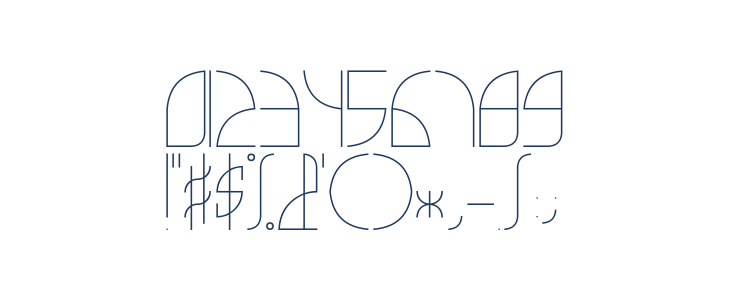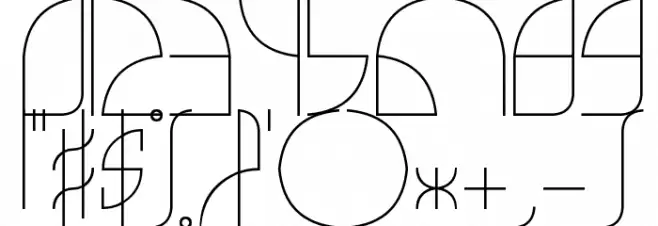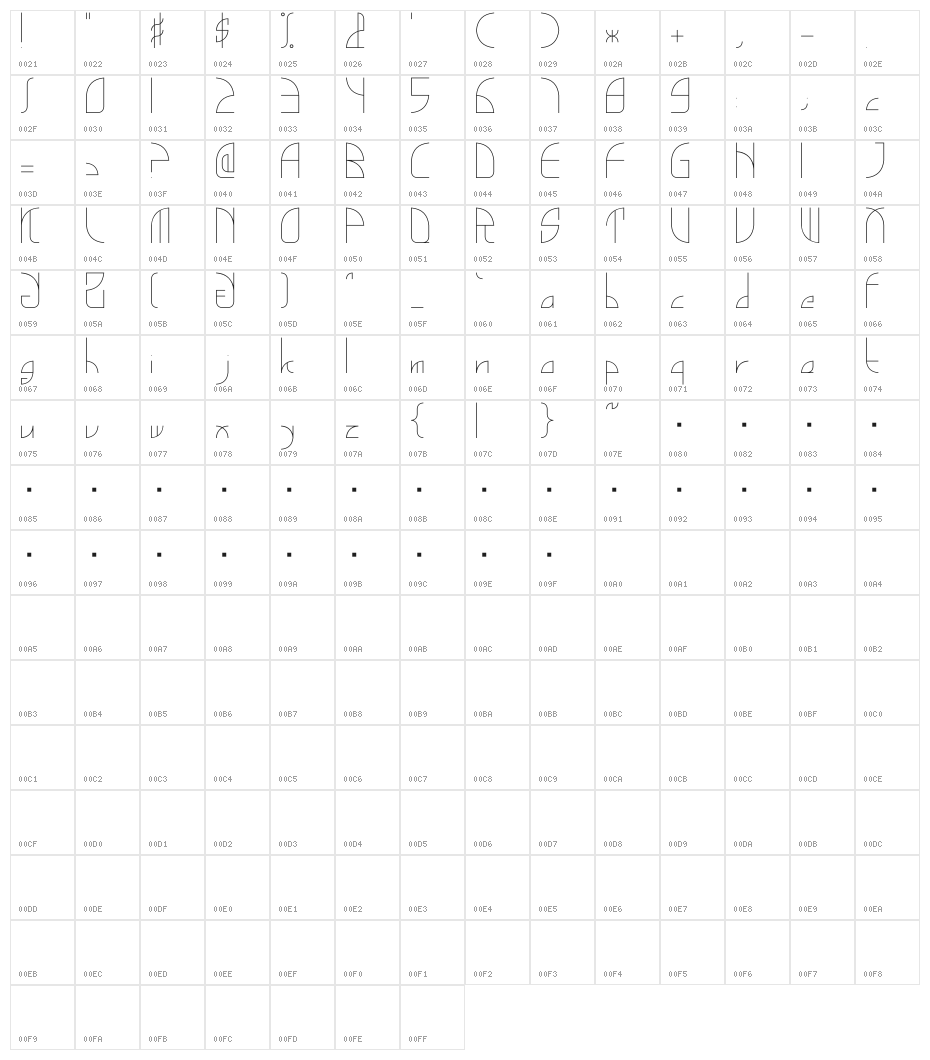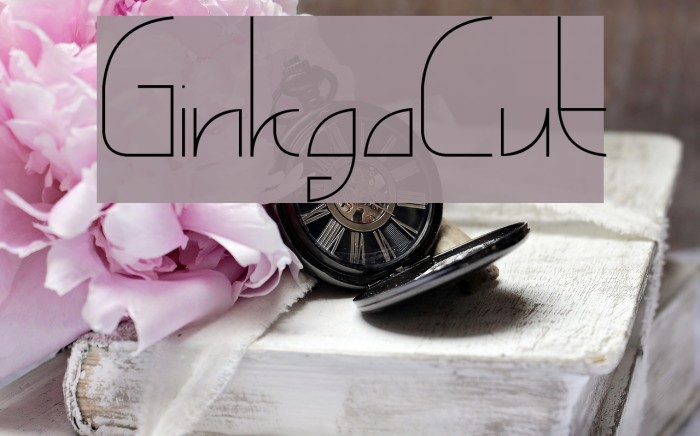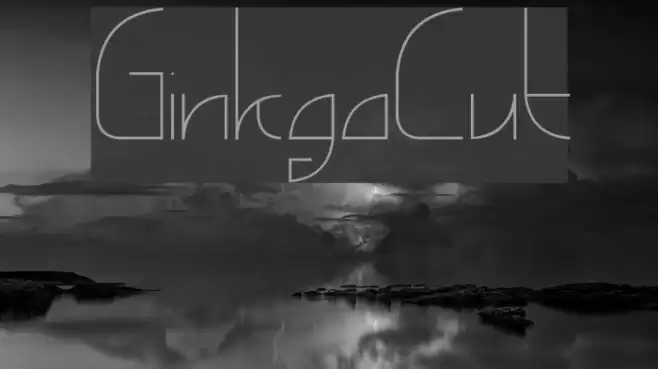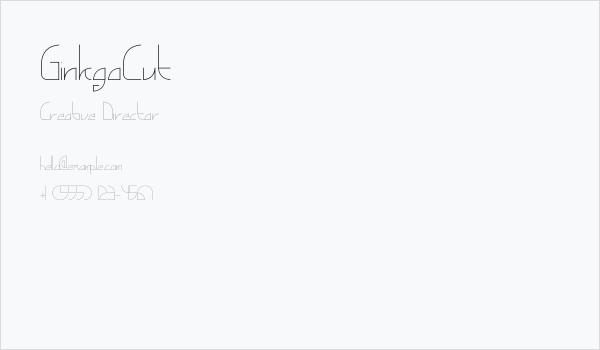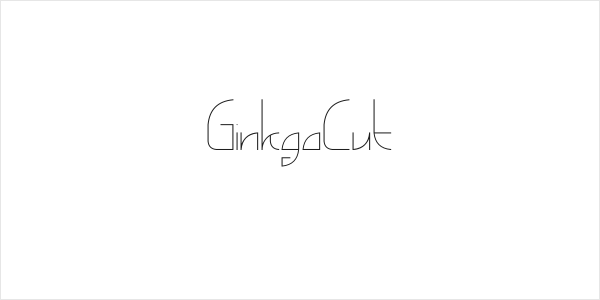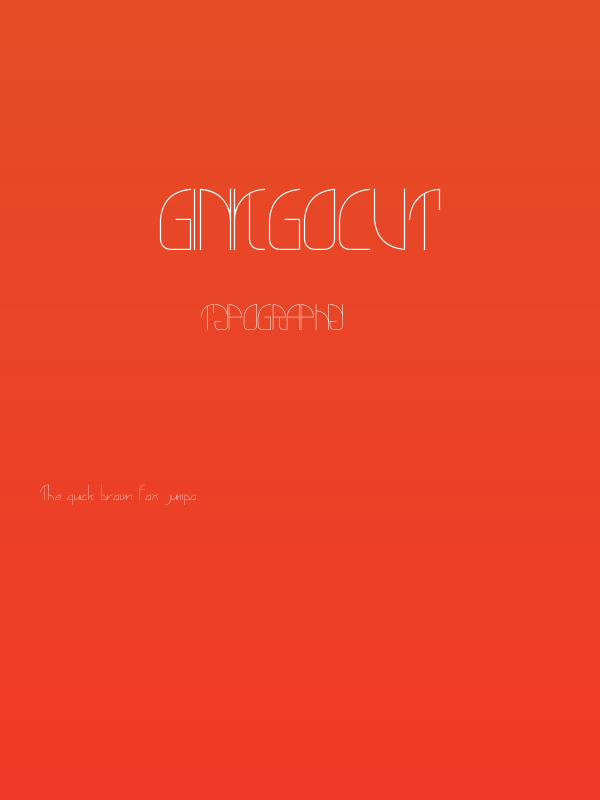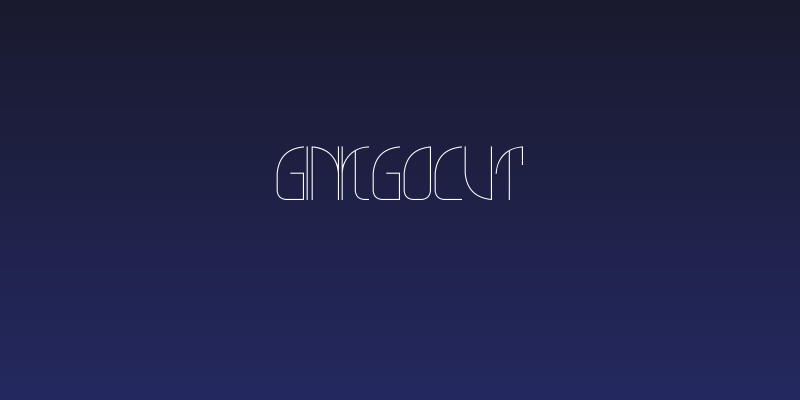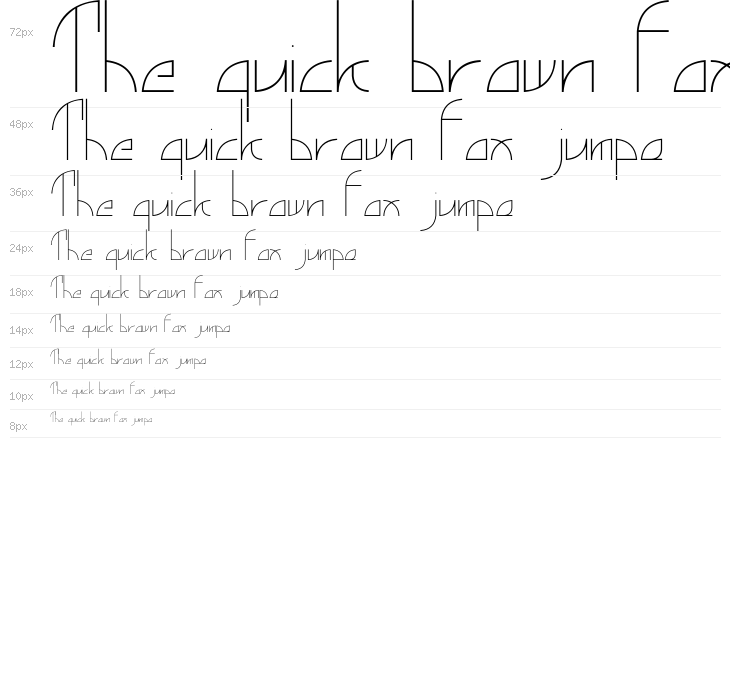
GinkgoCut Font
GinkgoCut Description
This font features a unique and modern design with a geometric and minimalist approach. The characters are composed of thin lines and sharp angles, creating an elegant and futuristic appearance. The uppercase letters are particularly striking, with a distinct architectural feel, while the lowercase letters maintain a consistent style. The numerals and special characters are equally well-designed, fitting seamlessly into the overall aesthetic. This font's clean lines and open spaces make it highly legible, despite its artistic flair.
GINKGOCUT UPPERCASE
GINKGOCUT LOWERCASE
GINKGOCUT OTHER CHARS
| Use Case | Logos, Headlines, Editorial design |
| Proposed Projects | Ideal for branding, logos, and editorial design where a modern and sophisticated appearance is desired. |